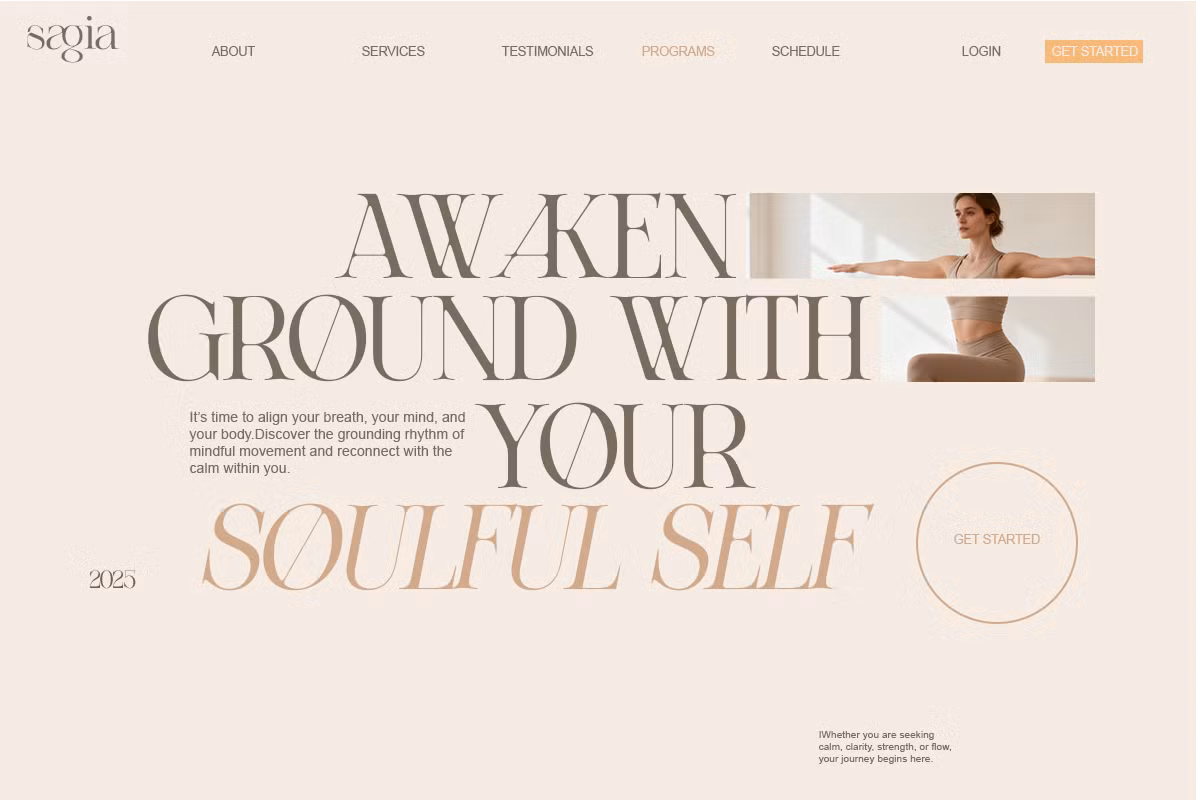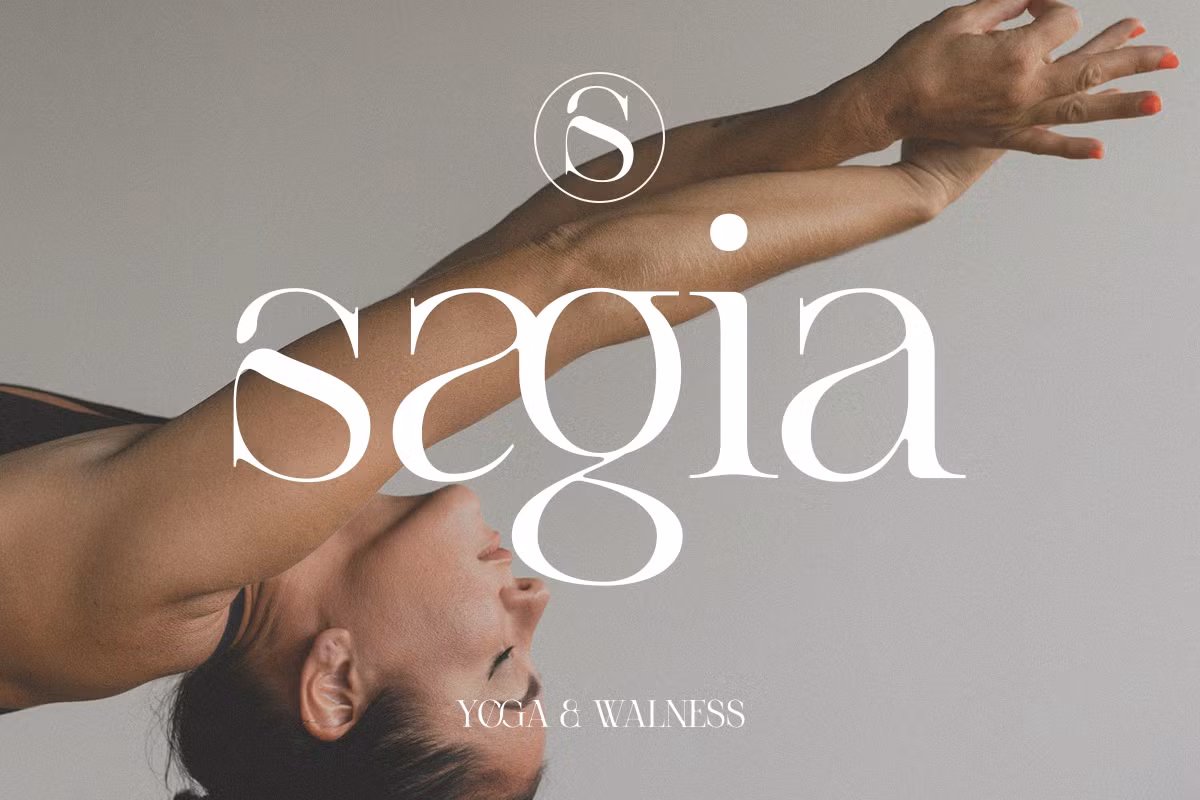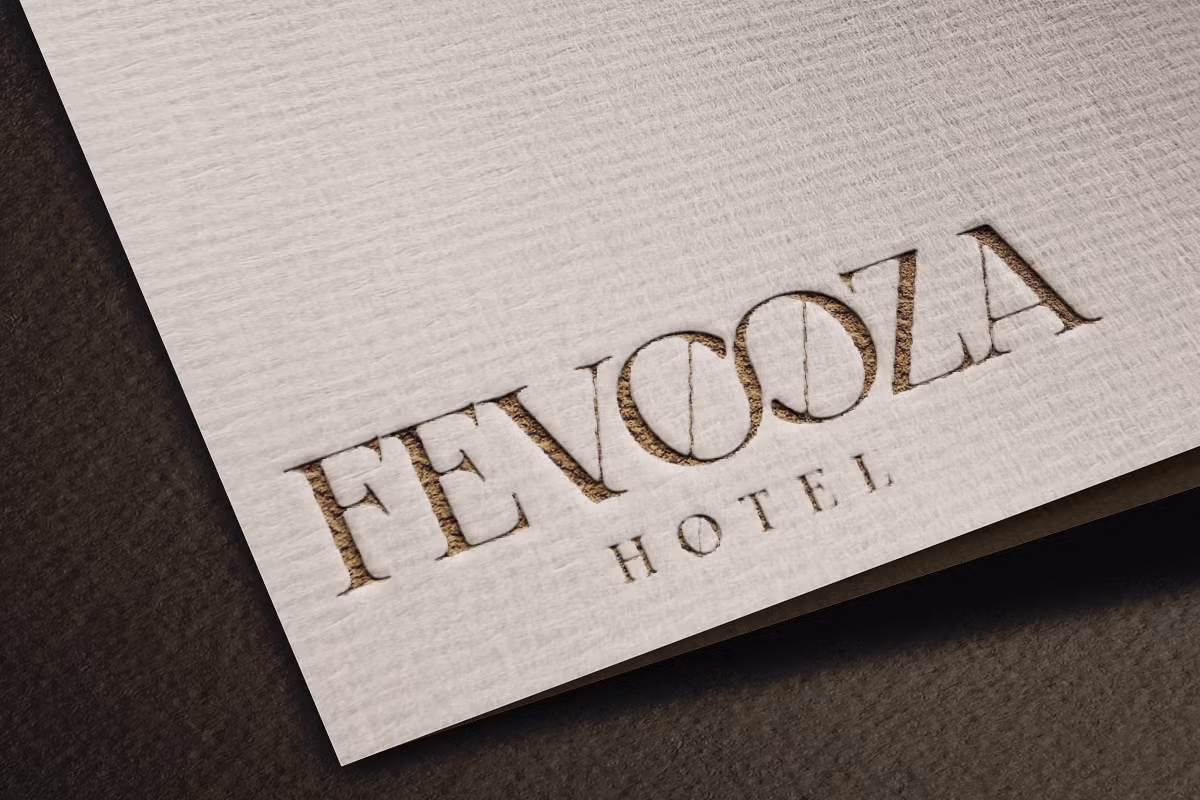
Relooyd: Elegant Luxury Serif Typeface for Timeless Design
Relooyd is a beautiful, modern serif font that’s perfect for people who like things that are classy and elegant. It has thick and thin lines that work well together, and the little connections between letters are really detailed. This font is special because it can make any design look more sophisticated and calm. It’s not just a bunch of letters, it’s a way to make a statement and make your design look really good. When you use Relooyd, you’re adding a touch of luxury to your project, and it can really make it stand out. Whether you’re working on a big project or just something small, this font can help you create something that looks really professional and stylish.
The way Relooyd is designed is really elegant and refined. It has thick and thin lines that stand out, which gets your attention, but it’s also subtle and sophisticated. The special connections between letters, called ligatures, are carefully made to make the text flow smoothly and look great, making it easier to read and more pleasing to the eye. This kind of design shows a lot of thought and care, and it’s what makes Relooyd special. The combination of classic and modern elements creates a unique look that’s both stylish and timeless.
Overall, the design of Relooyd is a great example of how typography can be both beautiful and functional. Relooyd’s simple shapes come together in a way that creates a sense of harmony, giving it a strong but elegant look. This makes it a great choice for projects that need to feel high-end, like designing logos for fashion brands or creating premium identities.
Character Sets
Relooyd gives you a wide range of characters, including both big and small letters, which makes it really versatile for different design projects. You also get some extra characters and letter combinations that let you get creative and make your text look just the way you want it to. This means you can customize your typography to fit your specific needs, which is really useful.
- Uppercase Letters: Bold and commanding, perfect for headlines and logos.
- Lowercase Letters: Elegant and refined, ideal for body text and supporting content.
- Alternates: Various stylistic options to enhance visual interest.
- Ligatures: Special character combinations that improve flow and readability.
Relooyd is great for projects that need to be in many languages because it has a big set of characters. This means you can use it for designs that need to appeal to people all around the world. It’s really versatile and perfect for modern designers who want to create something that can be used globally.
Use Cases
Relooyd is exceptionally versatile and can be used across a range of projects. Here are some of the ideal applications for this luxurious typeface:
- Luxury Branding: Perfect for brands looking to convey sophistication and exclusivity.
- Fashion Editorials: Enhances the visual storytelling of fashion magazines.
- Beauty Packaging: Attracts consumers’ attention on product labels.
- Wedding Stationery: Ideal for creating a memorable and elegant atmosphere.
These use cases showcase Relooyd’s adaptability and ability to elevate any project, ensuring that your designs resonate with your target audience.
Pairing fonts effectively is crucial to achieving a harmonious design. Relooyd, with its distinct character, can beautifully complement a variety of other typefaces. Here are some pairing suggestions:
When it comes to pairing fonts, Relooyd works really well with simple, clean sans serif fonts like Montserrat or Open Sans. This combination creates a look that’s both modern and timeless. The contrast between the serif and sans serif styles makes the text easier to read and adds some visual appeal.
For a classic look, you can pair Relooyd with a stronger serif font like Playfair Display. This mix of fonts gives you a sense of sophistication and enduring style. The combination creates a beautiful balance of elegance and tradition.
Experimenting with different pairings will allow you to discover unique combinations that suit your design vision while maintaining the luxurious essence of Relooyd.
Relooyd is a beautiful, high-end serif font that looks classy and never goes out of style. It has thick and thin lines, nice connections between letters, and lots of different characters, making it great for many uses, like branding for fashion or wedding invitations.